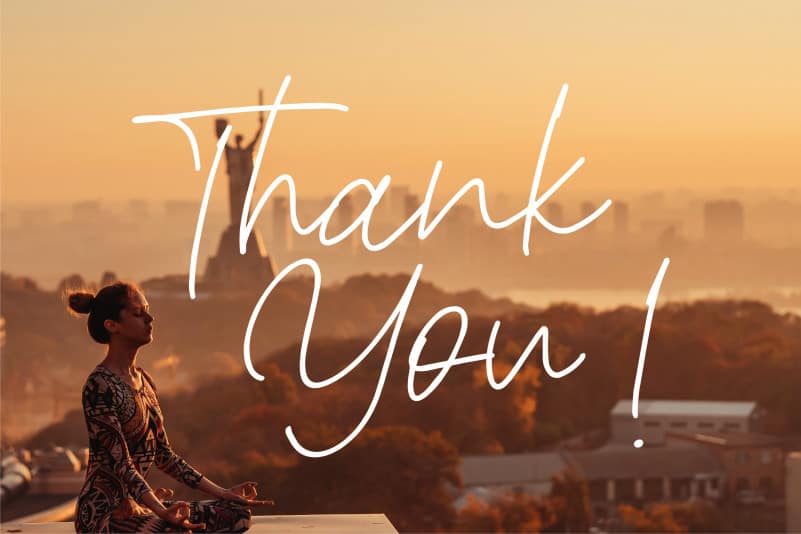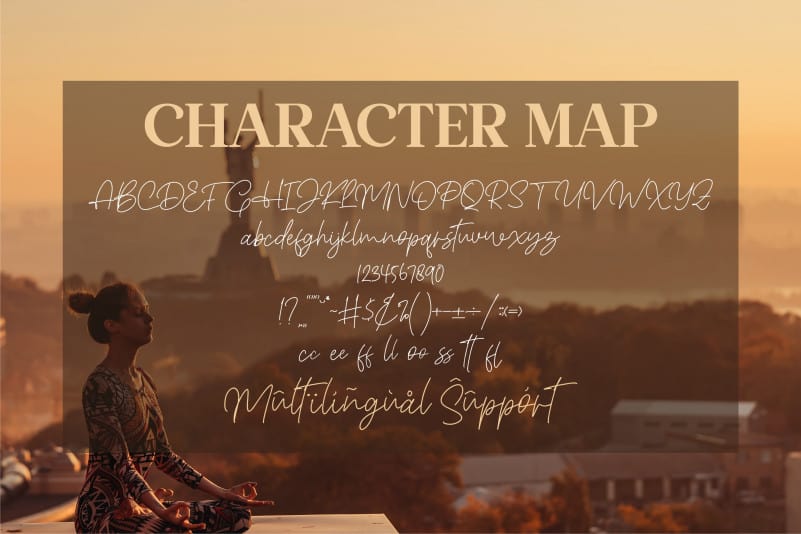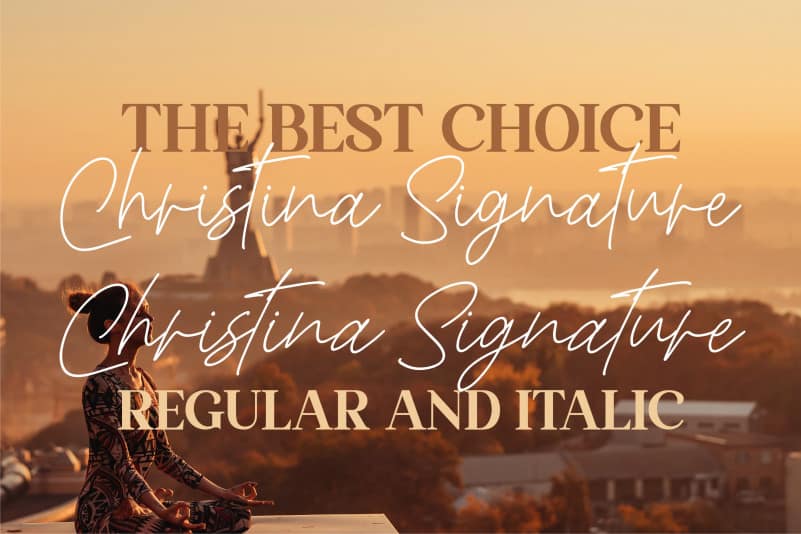
Christina Signature Script Font
Christina Signature Script Font, from Letterena, is a signature font, suitable for any projects such as: logos, branding projects, homeware designs, product packaging, mugs, quotes, posters, shopping bags, t-shirts, book covers, name card, invitation cards, greeting cards, label, photography, watermark, special events, and all your other luxury projects that need a script Signature taste.